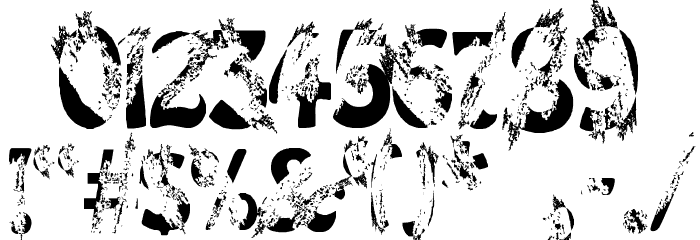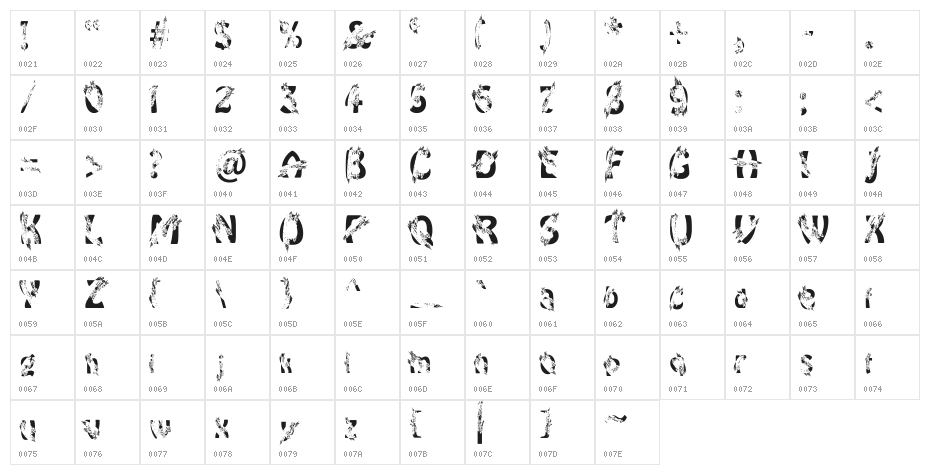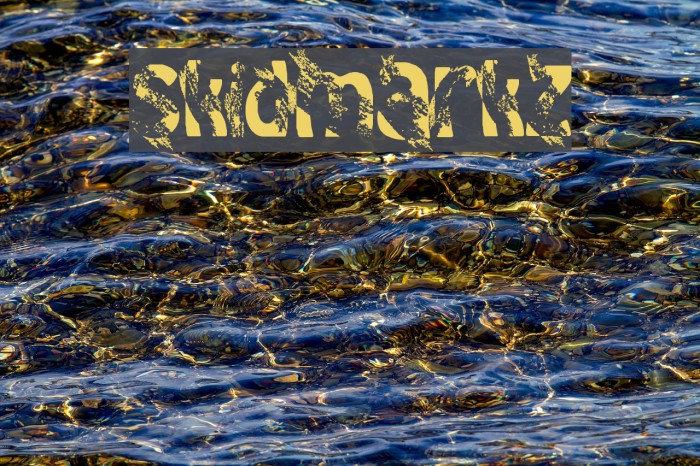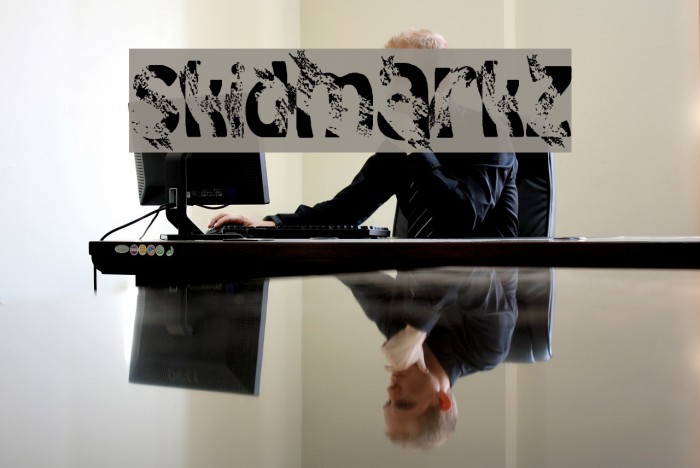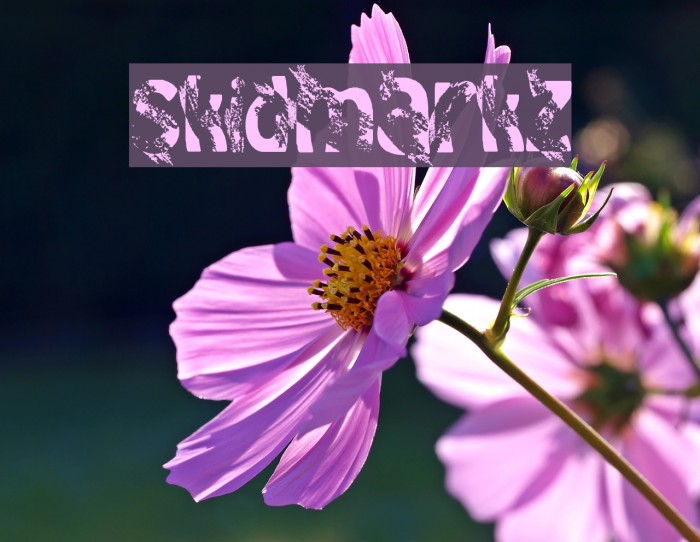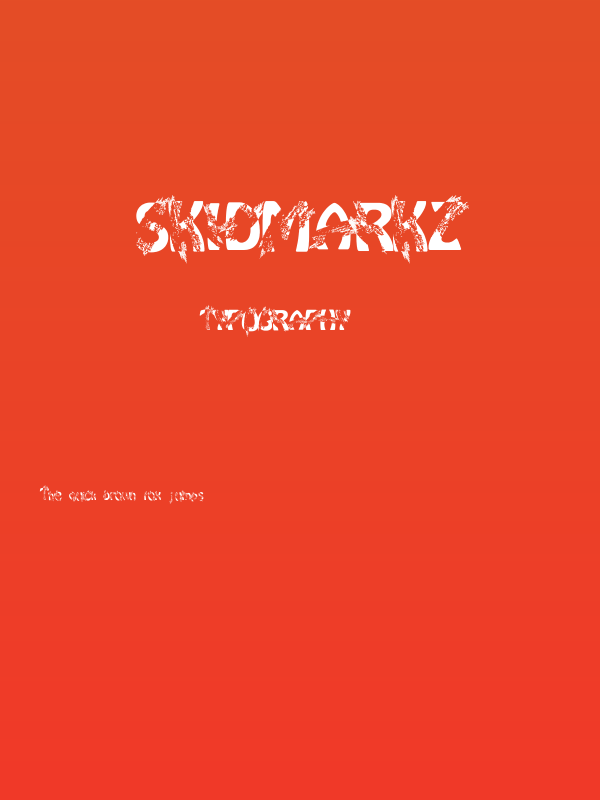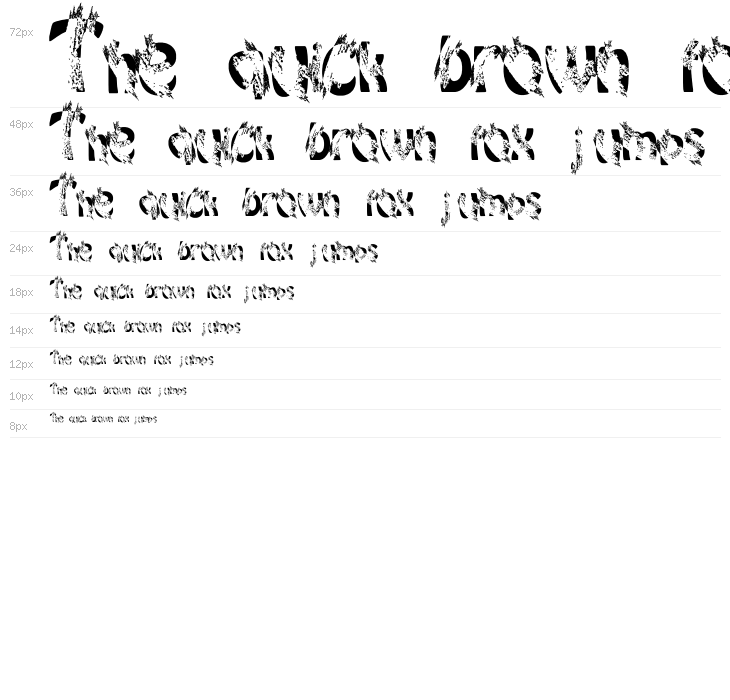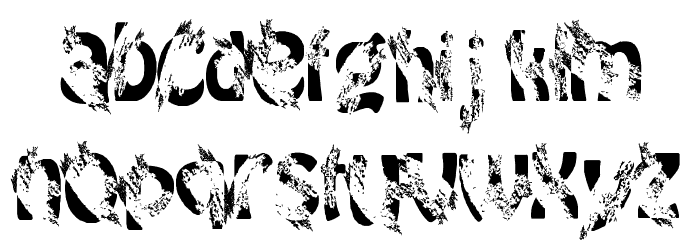
skidmarkz Font
skidmarkz Description
This font features a distressed, grunge style that mimics the appearance of skid marks or worn textures. The characters are bold and have a rough, uneven surface, giving them a rugged and edgy look. The uppercase and lowercase letters, as well as numbers and special characters, maintain this distressed aesthetic, making it ideal for designs that require a raw, urban feel. The font's unique texture adds a dynamic and energetic vibe, suitable for projects that aim to stand out with a bold statement.
| Overall Style | Grunge, Urban, Edgy |
| Use Case | Logos, Posters, Headlines |
| Proposed Projects | Ideal for album covers, streetwear branding, skateboarding graphics, or any project needing an edgy, urban aesthetic. |